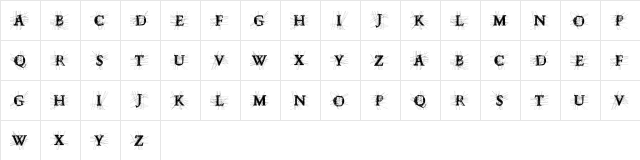
GaramondPowerLineCaps Regular
Design Context for GaramondPowerLineCaps Typeface
GaramondPowerLineCaps brings high-energy athletic personality to the page — its confident, muscular forms are built for impact.
A natural choice for gym brands, fantasy sports, jersey lettering, and action-driven headlines.
Pro Tip: Use GaramondPowerLineCaps in all-caps headlines where its athletic energy can fully express itself. Pair with a solid, simple sans for supporting text.